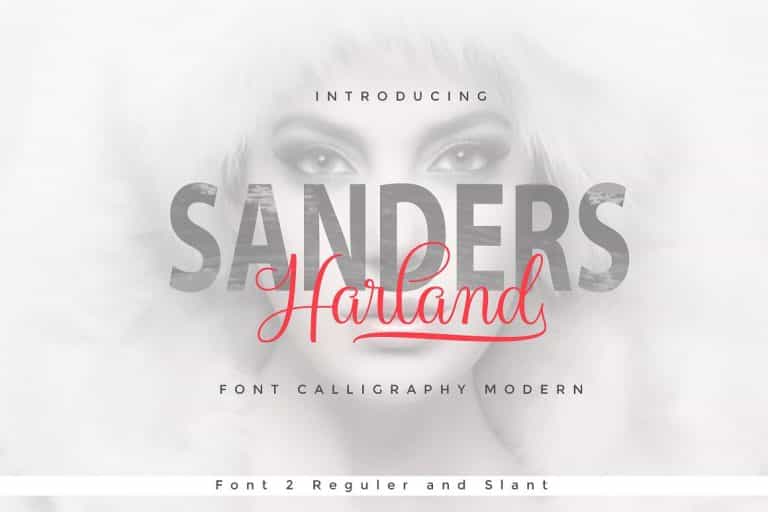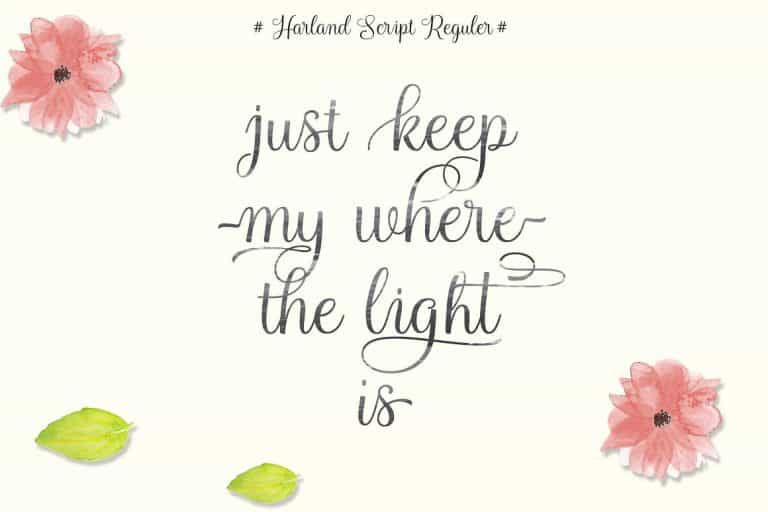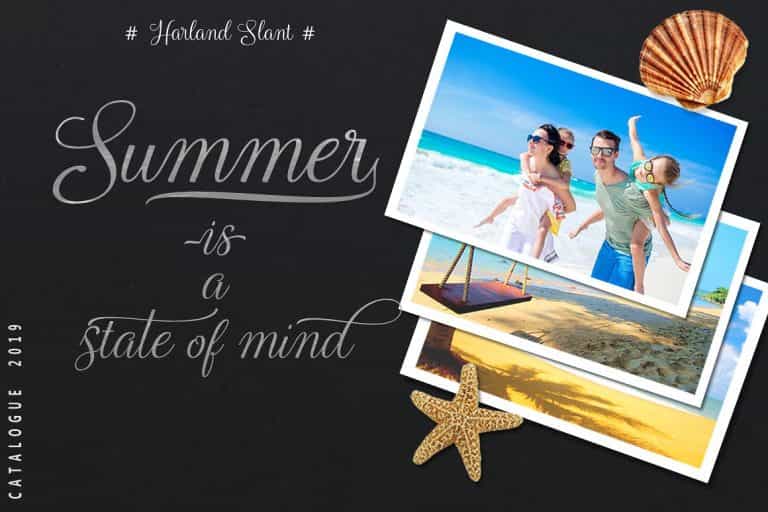
Introducing Harland Font. Harland a brand new contemporary & modern script with the calligraphy style made by hand, decorative characters and dancing baseline!Thus, it is so perfect for invitation like greeting cards, branding materials, business cards, quotes and posters.